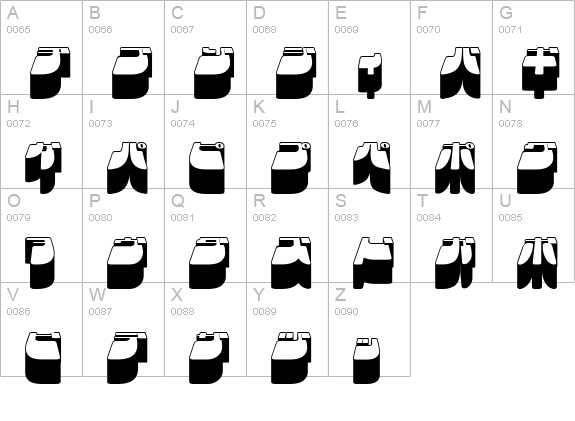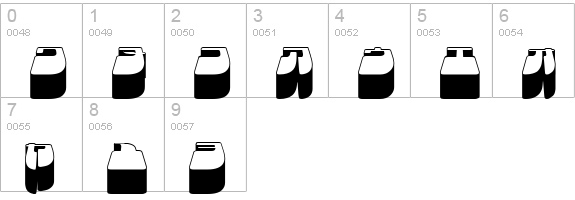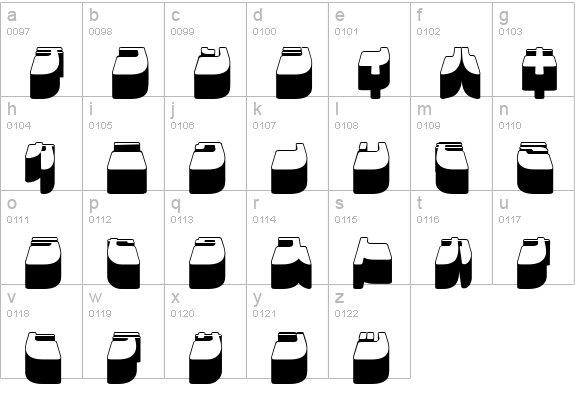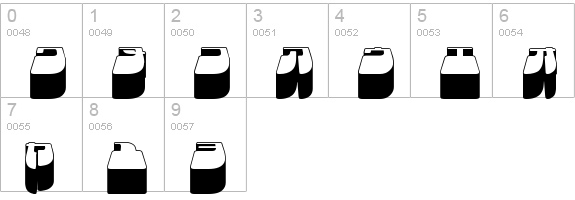
Frigate Katakana - 3D Font Details
Frigate Katakana is a stunning 3D font that exudes a modern and futuristic vibe. With its sleek lines and bold shapes, this font is perfect for creating eye-catching designs that demand attention. The intricate details of Frigate Katakana add depth and dimension to any project, making it a versatile choice for various creative endeavors. What sets Frigate Katakana apart is its unique blend of contemporary style and traditional Japanese influences, giving it a distinct and memorable look. Whether you're designing a poster, logo, or website, this font will make your work stand out with its distinctive flair. The best part? Frigate Katakana is available for free download at FontsMarket.com, making it easily accessible for designers and creators looking to add a touch of sophistication to their projects without breaking the bank. Don't miss out on this opportunity to enhance your designs with the captivating Frigate Katakana 3D font.